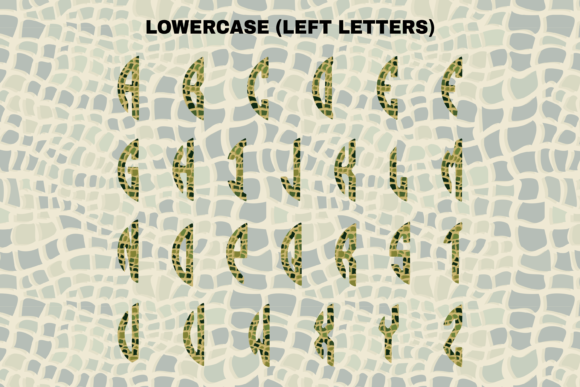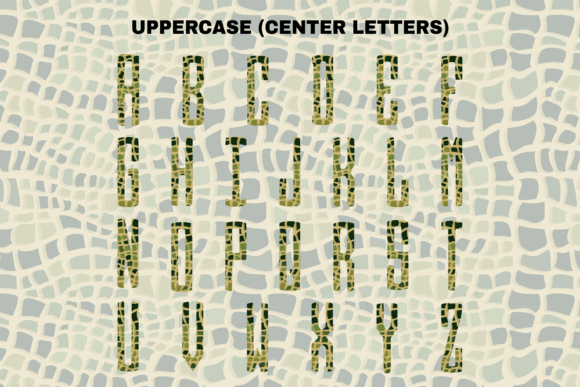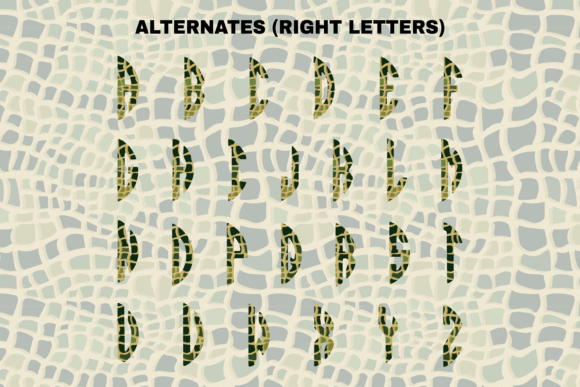
Introducing Alligator Circle Font: The Ultimate Monogram Font for Designers and Crafters
Are you tired of using the same old fonts for your designs and crafts? Look no further! Alligator Circle Font is here to take your creative projects to the next level. This incredibly cool 3-letter monogram font features cute alligator themes that are sure to add a lovely touch to any design. In this article, we’ll dive into the details of Alligator Circle Font, its features, and how you can use it to elevate your designs and crafts.
What is Alligator Circle Font?
Alligator Circle Font is a unique and customizable monogram font that contains adorable alligator designs. With its cute and playful theme, this font is perfect for designers and crafters who want to add a personal touch to their projects. Whether you’re creating custom designs, DIY crafts, or any other type of creative project, Alligator Circle Font is an amazing choice.
Key Features of Alligator Circle Font
- Easily Customizable: Alligator Circle Font is easy to use and customize. Simply type in your desired text, and the font will do the rest.
- PUA Encoded: This font is PUA encoded, which means you can access all of the glyphs and swashes with ease. This feature makes it easy to use and customize the font to your liking.
Ideas for Using Alligator Circle Font
Alligator Circle Font is a versatile font that can be used for a variety of creative projects. Here are a few ideas to get you started:
- Custom Designs: Use Alligator Circle Font to create custom designs for your business or personal brand.
- DIY Crafts: Add a personal touch to your DIY crafts, such as iron-on designs, vinyl decals, or paper crafts.
- Party Decorations: Use Alligator Circle Font to create custom party decorations, such as banners, signs, or invitations.
- Social Media Graphics: Use Alligator Circle Font to create eye-catching social media graphics, such as quotes, posters, or ads.
Here are a few tips and tricks to help you get the most out of Alligator Circle Font:
- Experiment with Different Colors: Alligator Circle Font is a color font, so don’t be afraid to experiment with different colors and combinations.
- Use the Glyphs and Swashes: The glyphs and swashes available in Alligator Circle Font can add an extra touch of personality to your designs.
- Combine with Other Fonts: Try combining Alligator Circle Font with other fonts to create a unique and eye-catching design.